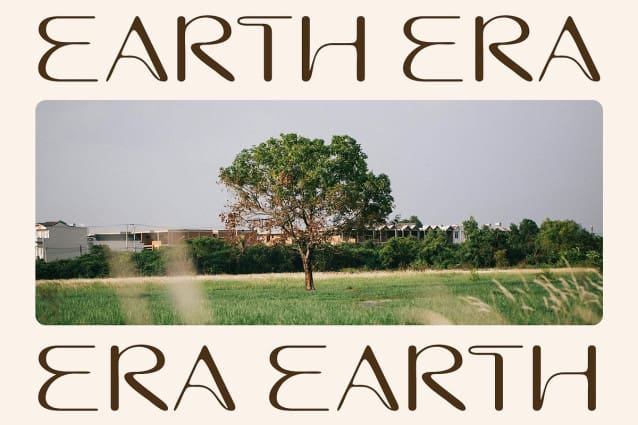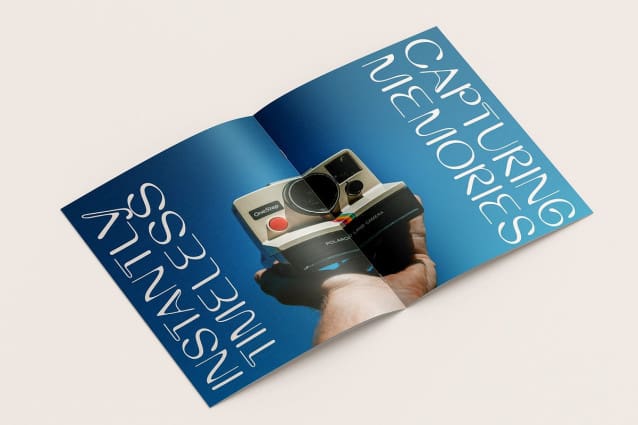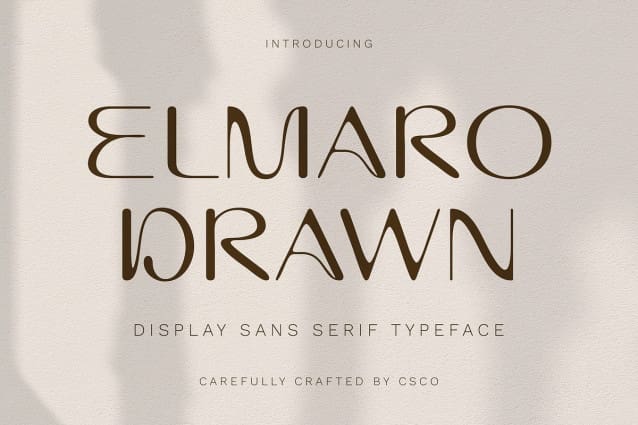
Elmaro Drawn Font
Elmaro Drawn Font is a modern sans serif display font that beautifully merges minimal, clean lines with a subtle hand-drawn effect. This design offers a harmonious balance between simplicity and elegance, making it perfect for projects that require a refined yet artistic typography style. The hand-drawn elements introduce a touch of personality, giving the font a unique and approachable feel.
Sophisticated and Artistic Appeal The understated elegance of Elmaro Drawn makes it an ideal choice for a wide range of design applications. Whether you’re creating branding, invitations, editorial layouts, or other creative projects, this font brings a sophisticated and artistic touch. Its minimalistic structure ensures clarity and readability while the subtle hand-drawn effect adds an expressive, personal flair.
Versatile for Creative and Formal Design Projects Elmaro Drawn’s versatile design makes it suitable for both formal and creative settings. Its modern and sleek appearance works well in high-end branding and invitations, while the hand-drawn details provide an artistic and distinctive edge, ideal for creative projects. Whether you’re working on a corporate identity or a stylish event invitation, this font adds a polished, refined look that captures attention.